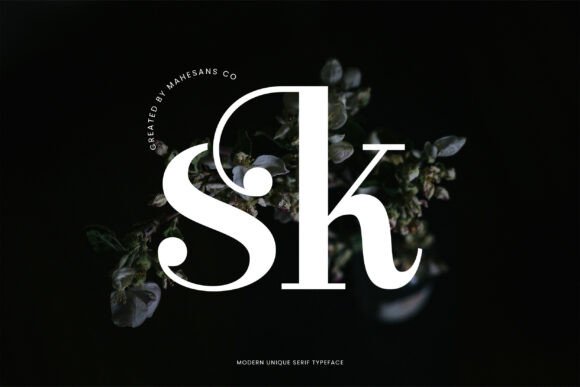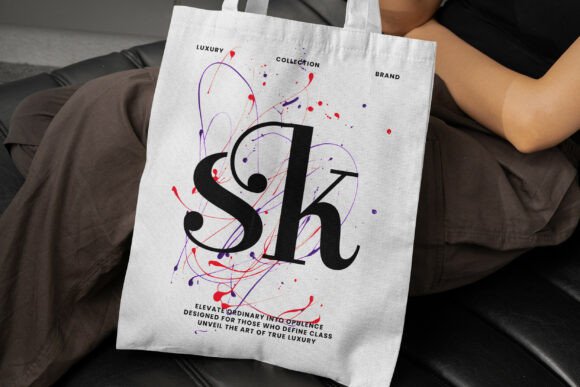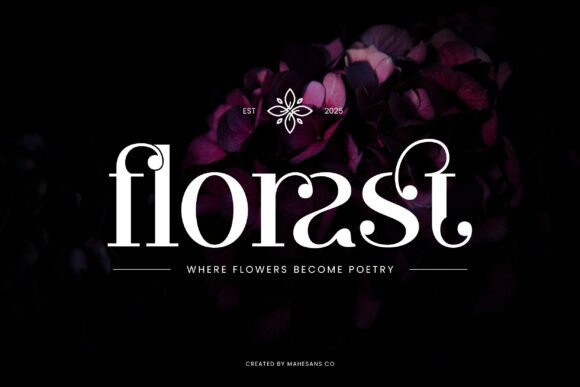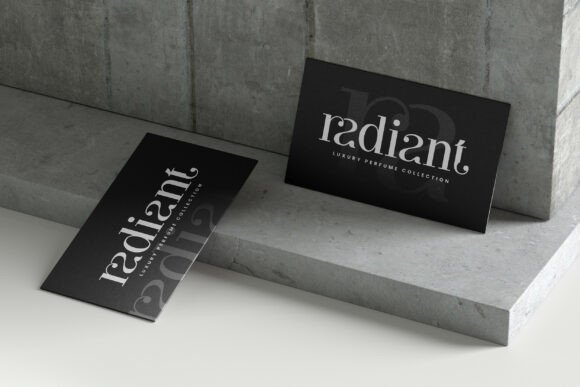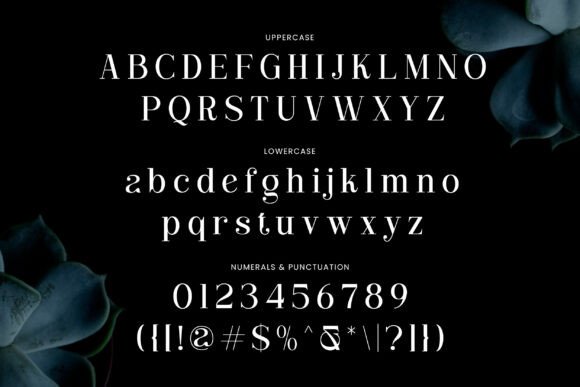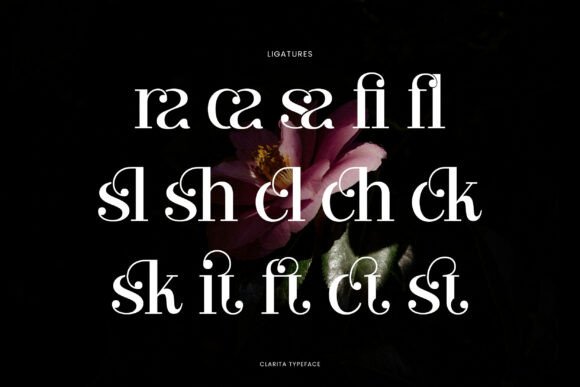
Introducing Clarita Font: Elevate Your Designs with Luxury and Elegance
In the world of typography, a well-crafted font can make all the difference in elevating your designs to the next level. For designers and crafters seeking a typeface that exudes luxury, elegance, and artistic flair, Clarita Font is an exceptional choice. This modern serif typeface seamlessly blends sophistication and style, making it perfect for a wide range of applications, from branding and fashion editorials to upscale packaging and social media content.
The Unique Characteristics of Clarita Font
Clarita Font boasts a distinctive design that sets it apart from other typefaces. Its high contrast strokes, stylish terminals, and exquisite ligatures come together to create a truly unique and elegant aesthetic. Each letter is meticulously crafted with precision, ensuring a versatile font that works beautifully for various design applications. Whether you’re creating logos, magazine headlines, boutique branding, wedding invitations, or cosmetic packaging, Clarita Font is sure to impress.
Design Applications for Clarita Font
Clarita Font’s versatility makes it an excellent choice for a wide range of design applications. Some of the ways you can use Clarita Font include:
- Logos: Create a lasting impression with a logo that exudes luxury and sophistication.
- Magazine Headlines: Add a touch of elegance to your magazine headlines and make them stand out.
- Boutique Branding: Elevate your boutique branding with a font that screams luxury and style.
- Wedding Invitations: Make your wedding invitations truly special with a font that conveys love, elegance, and sophistication.
- Cosmetic Packaging: Add a touch of glamour to your cosmetic packaging and make your products stand out.
- Social Media Content: Elevate your social media content with a font that is both stylish and professional.
The Benefits of Using Clarita Font
Clarita Font offers several benefits that make it an attractive choice for designers and crafters. Some of the advantages of using Clarita Font include:
- Elegant Curves: Clarita Font’s elegant curves add a touch of sophistication to any design.
- Sophisticated Details: The font’s sophisticated details make it perfect for designs that require a high level of elegance.
- Chic and Classy: Clarita Font’s unique design makes it perfect for creating chic and classy designs.
- Professional: The font’s professional aesthetic makes it perfect for businesses and individuals seeking to create a lasting impression.
Why Choose Clarita Font?
With so many typefaces available, why choose Clarita Font? Here are a few reasons why Clarita Font stands out:
- Unique Design: Clarita Font’s unique design makes it perfect for designers and crafters seeking a typeface that stands out.
- Versatility: The font’s versatility makes it suitable for a wide range of design applications.
- Elegance: Clarita Font’s elegant curves and sophisticated details make it perfect for designs that require a high level of luxury and sophistication.
In conclusion, Clarita Font is an exceptional typeface that offers a unique blend of luxury, elegance, and artistic flair. Its high contrast strokes, stylish terminals, and exquisite ligatures make it perfect for designers and crafters seeking to elevate their designs. With its versatility, elegant curves, and sophisticated details, Clarita Font is sure to become a go-to choice for a wide range of design applications. Whether you’re creating logos, magazine headlines, boutique branding, wedding invitations, cosmetic packaging, or social media content, Clarita Font is the perfect choice for those seeking to make a lasting impression.